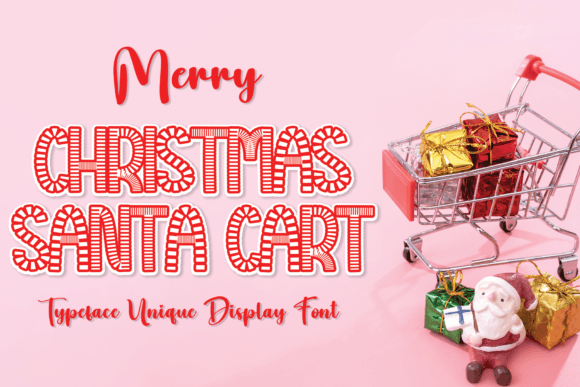
Journey through a winter wonderland with Christmas Santa Cart Font, a decorative font that captures the magic of the holiday season. With its whimsical and festive characters, this font will add a touch of charm to any project.
With Christmas Santa Cart Font, you can effortlessly create stunning designs for T-shirts, greeting cards, social media posts, and more. Its playful and eye-catching style is sure to make your creations stand out from the crowd. Unleash your creativity and let your imagination soar as you explore the endless possibilities that await you.
Christmas Santa Cart Font is a perfect choice for those seeking a unique and engaging way to express their holiday spirit. Its versatility knows no bounds, allowing you to effortlessly incorporate it into a wide range of designs. Whether you're creating personalized gifts, festive decorations, or eye-catching marketing materials, this font will add a touch of magic to your creations.
So, embark on a festive adventure with Christmas Santa Cart Font and let your designs sparkle with holiday cheer. Discover the joy of creating and bring your holiday visions to life with this enchanting font.